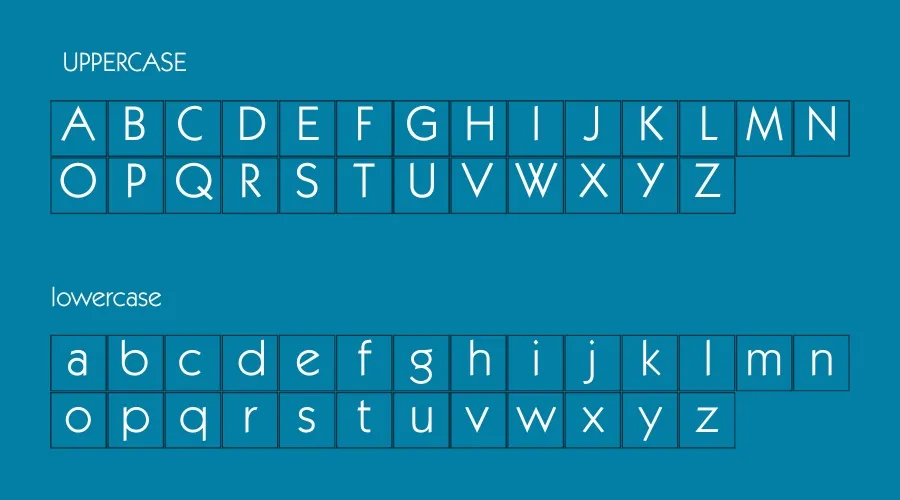
About Kabel Font
The Kabel font is under the category of the geometric sans serif texture family and developed by German designer Rudolf Koch. This unique font was published in 1926 as a metal texture through Kingsport foundry in german.
Kabel is utilized much for titles and heading and it is also suitable for both CSS and adobe photoshop. The temple AG publisher finally accepted the rights to all plans created by the Klingspor typographer and reprinted Kabel, although the Vincent Caruso in 1975 by is typically thought a whole digression and irrelevant to the original cloth.